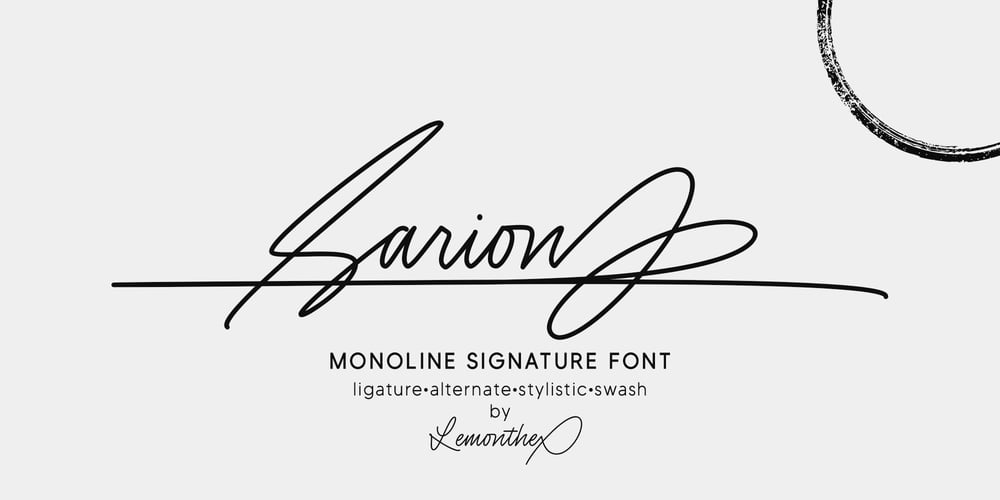
Sarion
Sarion font
Sarion Font Family was designed by Dwi Ahidian and published by Lemonthe. Sarion contains 1 styles and family package options. Sarion is an elegant signature font with a monoline style, featuring a lovely flow. It has a clean, thin and smooth vibe and it will be a hit for any design that you want to add it to. It’s perfect for many different projects such as logos and branding, invitations, signature, labels, photography, and more!